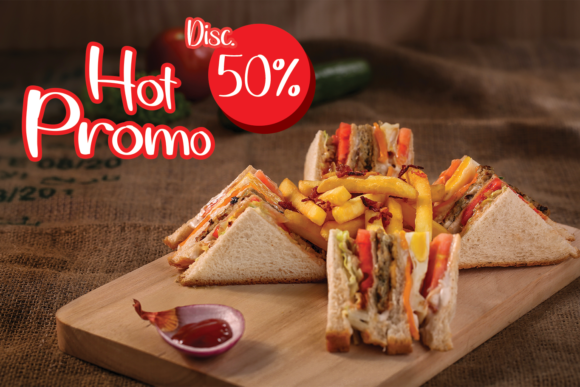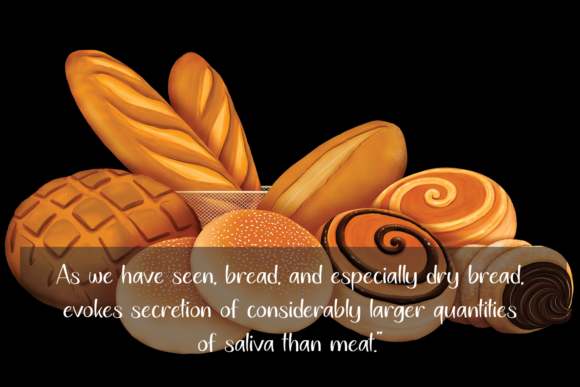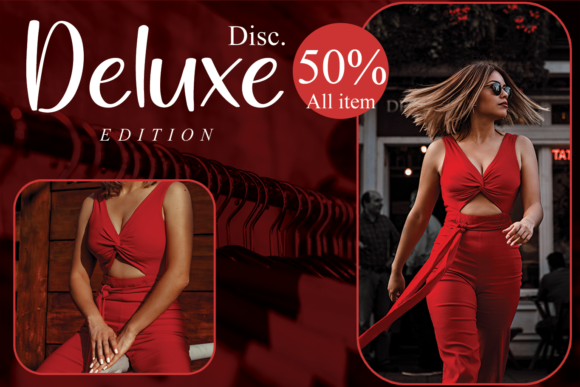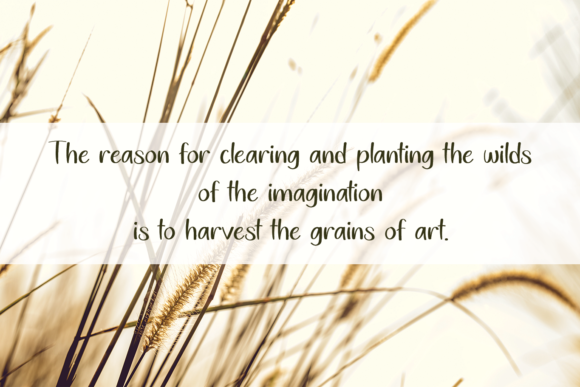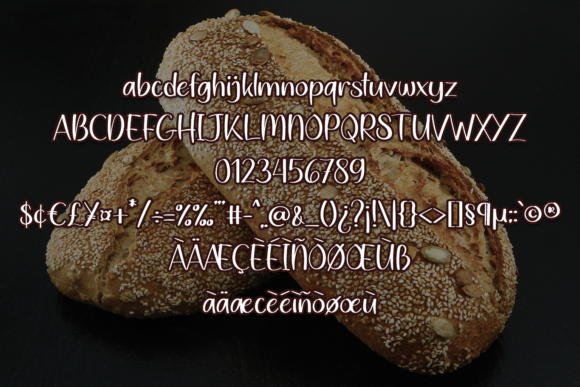
Bread Font
About Bread Font
Bread is a clean and friendly handwritten font that exudes versatility and trendiness. This font was particularly crafted for those who need a beautiful and refreshing look to their designs.